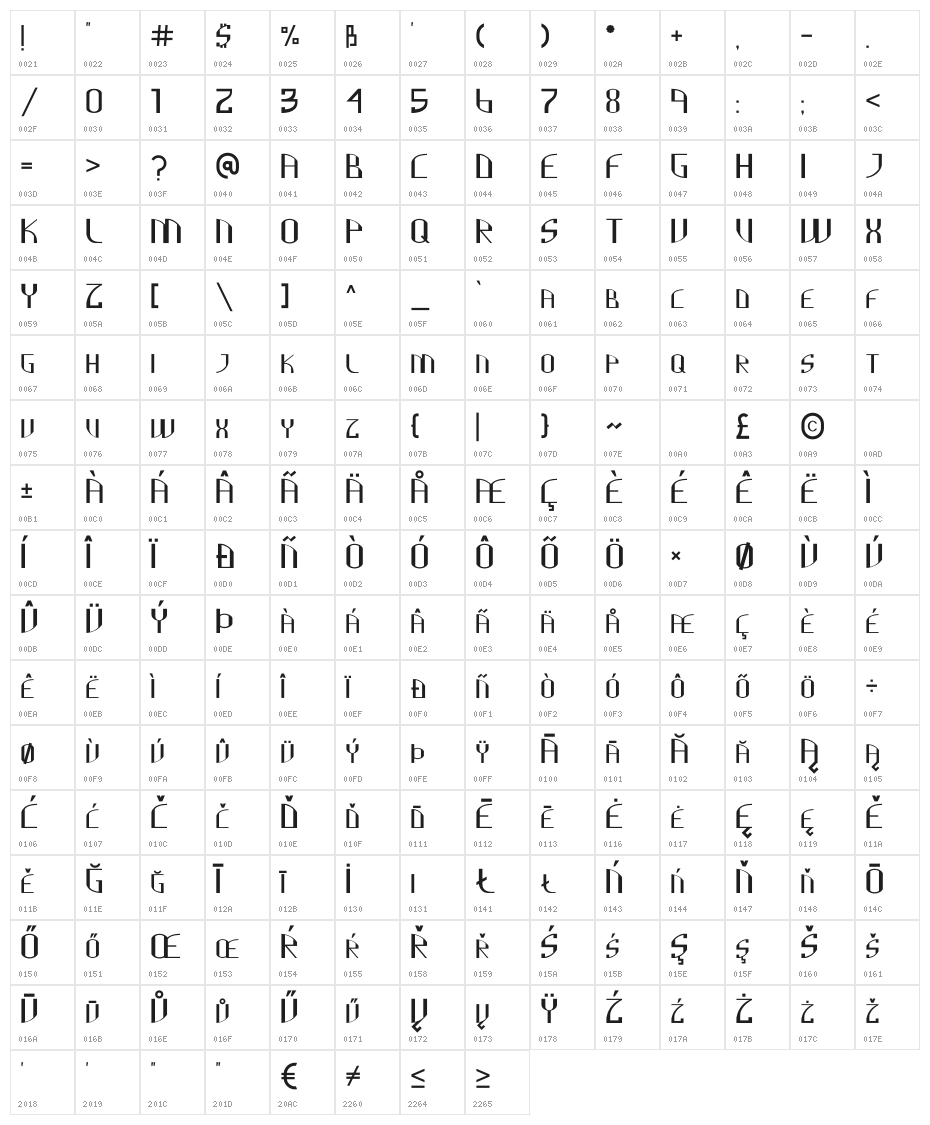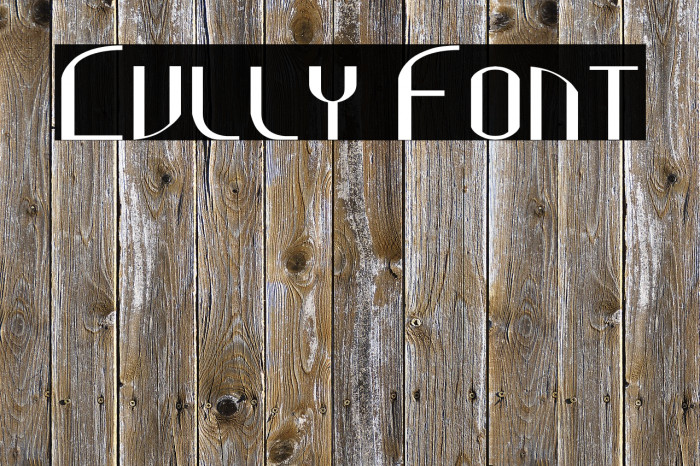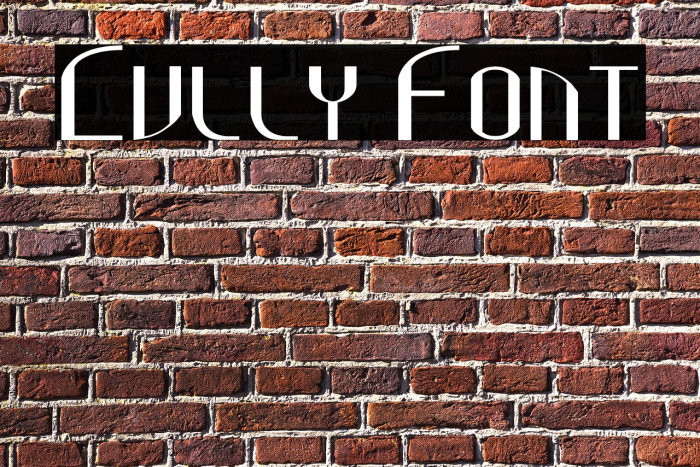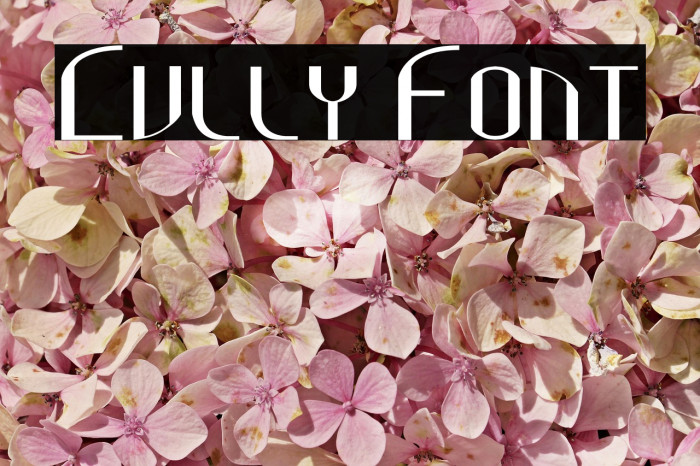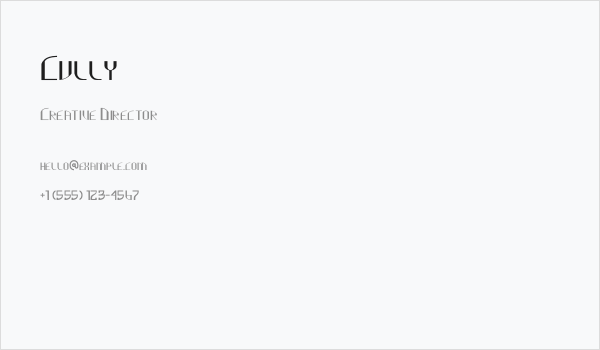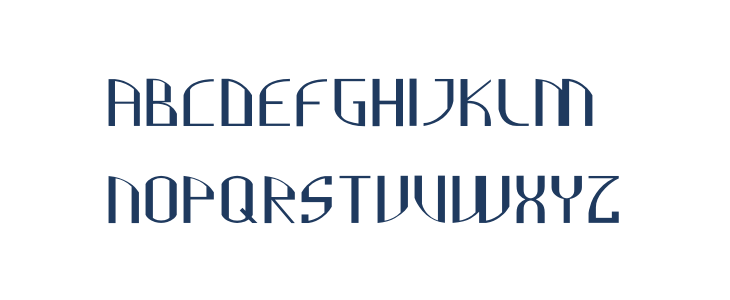
Cully Font
Cully Description
This font features a modern and geometric design with a distinct futuristic flair. The characters are constructed with sharp angles and clean lines, creating a sense of precision and innovation. The uppercase letters are bold and commanding, while the lowercase letters maintain a consistent style with slightly softer curves. The numerals are uniquely styled to match the overall aesthetic, making them stand out in any design. Special characters are included, each designed to complement the font's overall look. This font is ideal for projects that require a contemporary and cutting-edge appearance.
| Proposed Projects | Ideal for tech branding, sci-fi posters, modern logos, and innovative product packaging. |